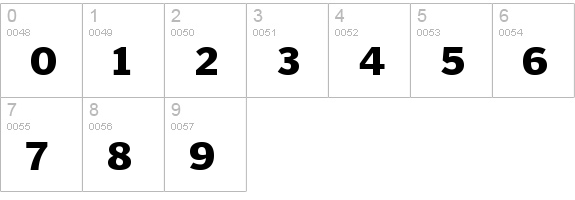
PoynterText-SansBlack Font Details
PoynterText-SansBlack is a modern and versatile font that exudes elegance and sophistication. With its bold and clean design, this typeface commands attention and makes a strong visual impact. Perfect for headlines, titles, and branding projects, PoynterText-SansBlack adds a touch of sophistication to any design. This font is not only visually appealing but also highly readable, making it suitable for both print and digital projects. Whether you're designing a poster, website, or magazine layout, PoynterText-SansBlack will help your content stand out and make a lasting impression. Best of all, PoynterText-SansBlack is available for free download at FontsMarket.com. This means you can easily access this stylish font and incorporate it into your design projects without any hassle. Don't miss out on this opportunity to elevate your designs with the timeless appeal of PoynterText-SansBlack.